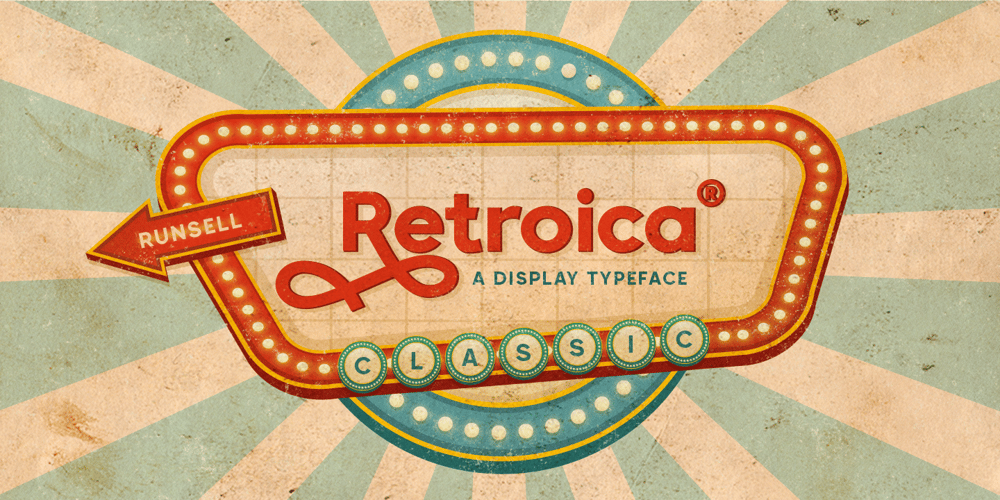
Retroica Font Family was designed by Fitriyawan and published by Runsell Type. Retroica contains 1 styles and family package options. The Retroica perfectly represents vintage aesthetics display typeface. This project inspired by beautiful lettering in old label. Some letter contains beautiful alternates characters (ss01 – ss04) and some ligaturesThe Retroica matches applies in some designs such as the logotype, poster, packaging, branding, quotes, badge and more custom design. The features uppercase, lowercase, numeral, punctuation & symbol, ligatures, alternates, multilingual support, PUA encoded (fully accessible without additional design software).How to get access alternate glyphs with designing software to open type fonts, klik here.